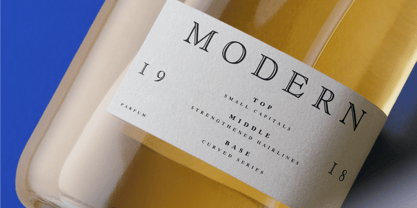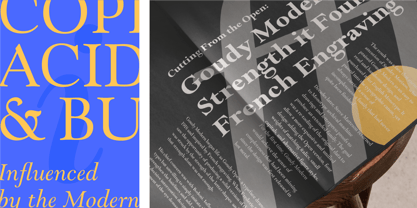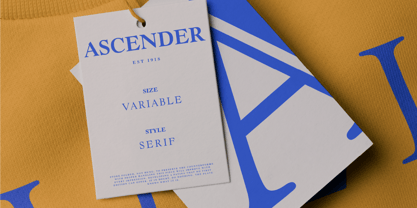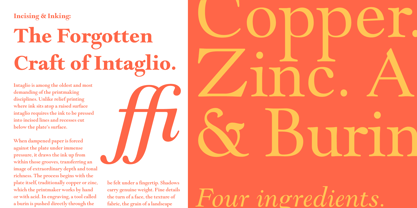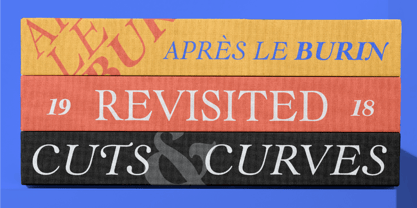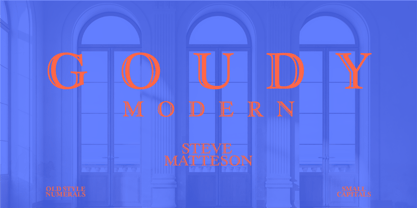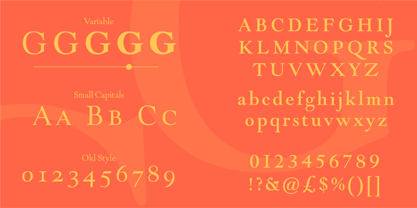
Goudy Modern Now Open
by Monotype
The Goudy Modern Now Open Font Family was designed by Steve Matteson, Frederic W. Goudy and published by Monotype. Goudy Modern Now Open contains 6 styles and family package options. More about this family
Frederic Goudy was inspired by a French engraving in Alex Pollard’s “Fine Books” to draw a display typeface with an inlined highlight in 1918. Goudy viewed the name Modern as only referring to the design being more contemporary than typical of his other typefaces – and not to be confused with the moderns of Bodoni and Didot. Steve Matteson added the light and heavier weights to extend the range of capability of the family, and to roughly interpret Goudy’s Goethe which is a lighter text typeface based on the original Goudy Modern.
Designers: Steve Matteson, Frederic W. Goudy
Foundry: Monotype